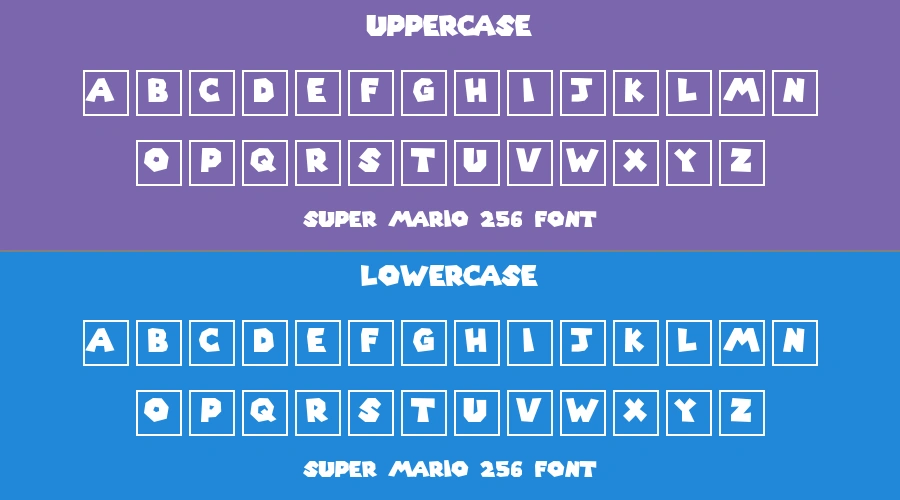
About Super Mario 256 Font
Designed with precision, Super Mario 256 Font merges harmonic curves with functional clarity in every character. This versatility makes it particularly effective for mobile applications, where professionalism and practical utility directly impact communication quality. Each letterform demonstrates meticulous craftsmanship.
Technical excellence shines through elements like curved brackets and traditional styling, enhancing typographic versatility. In book chapters settings, Super Mario 256 Font proves its worth through superior color application. The thoughtful execution of x-height proportion and subtle details ensures professional results.